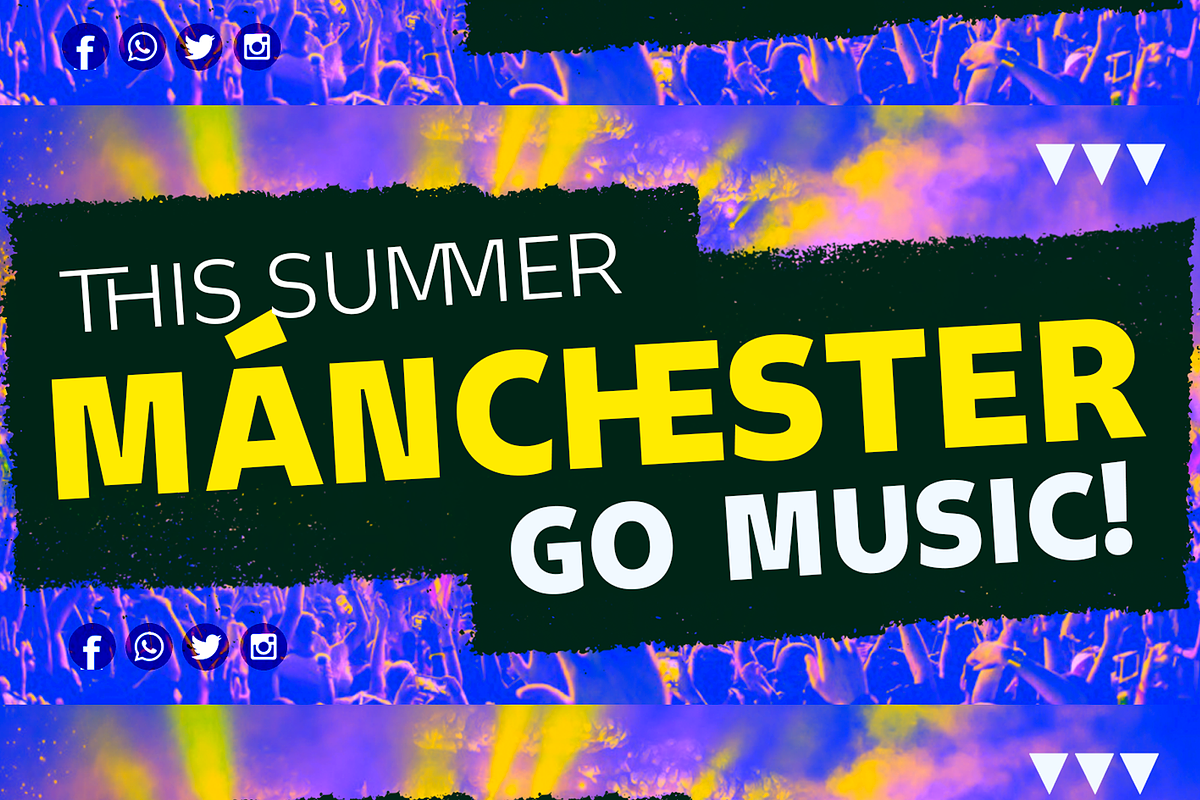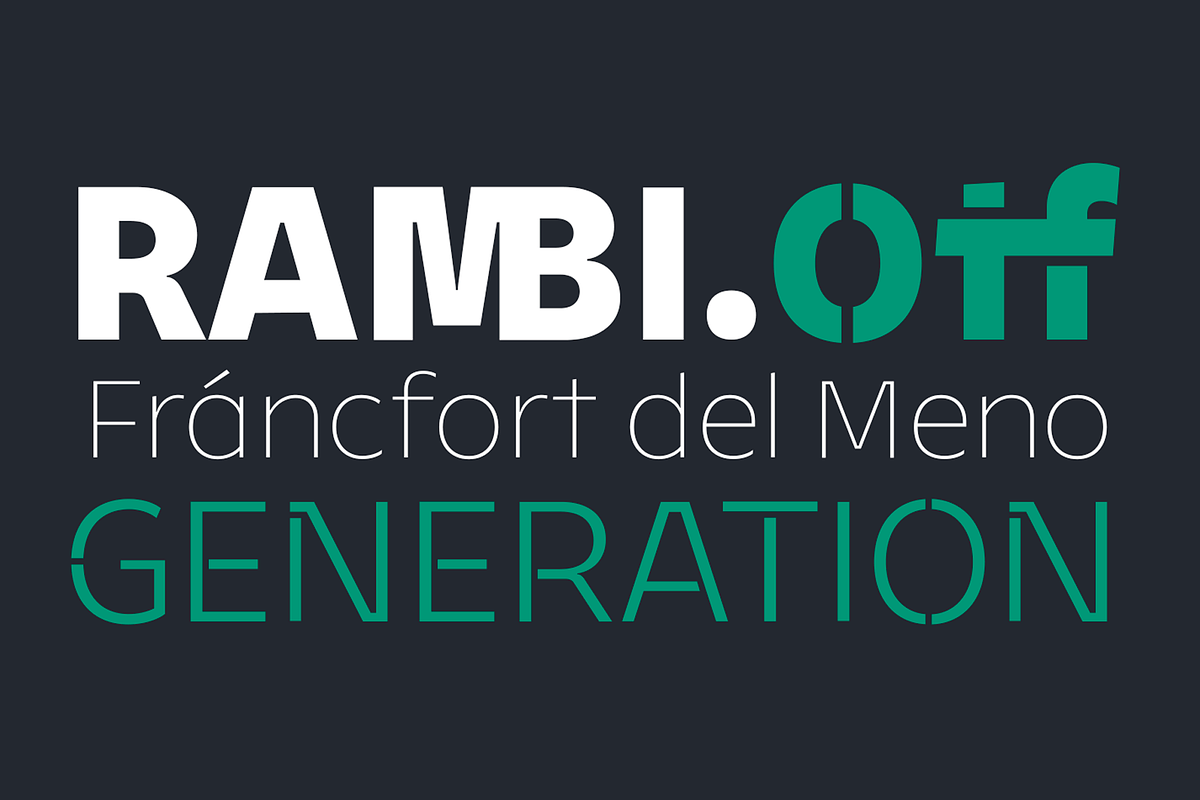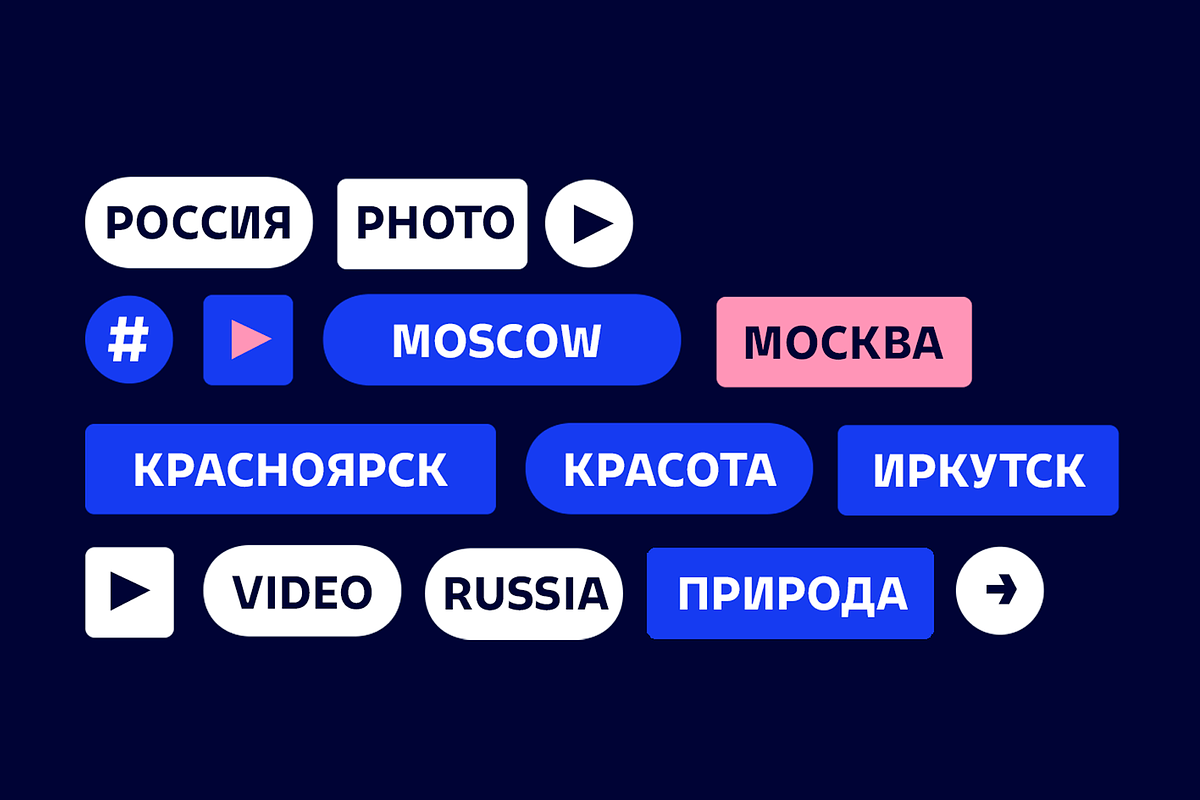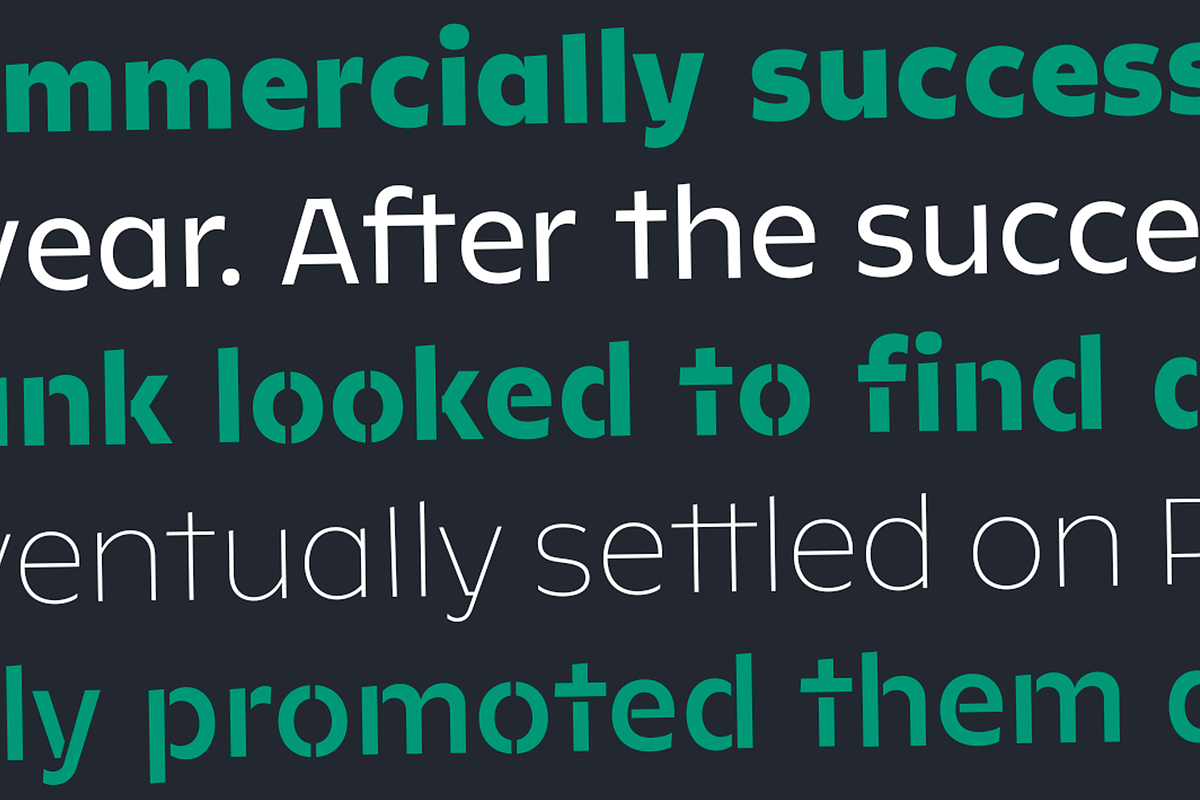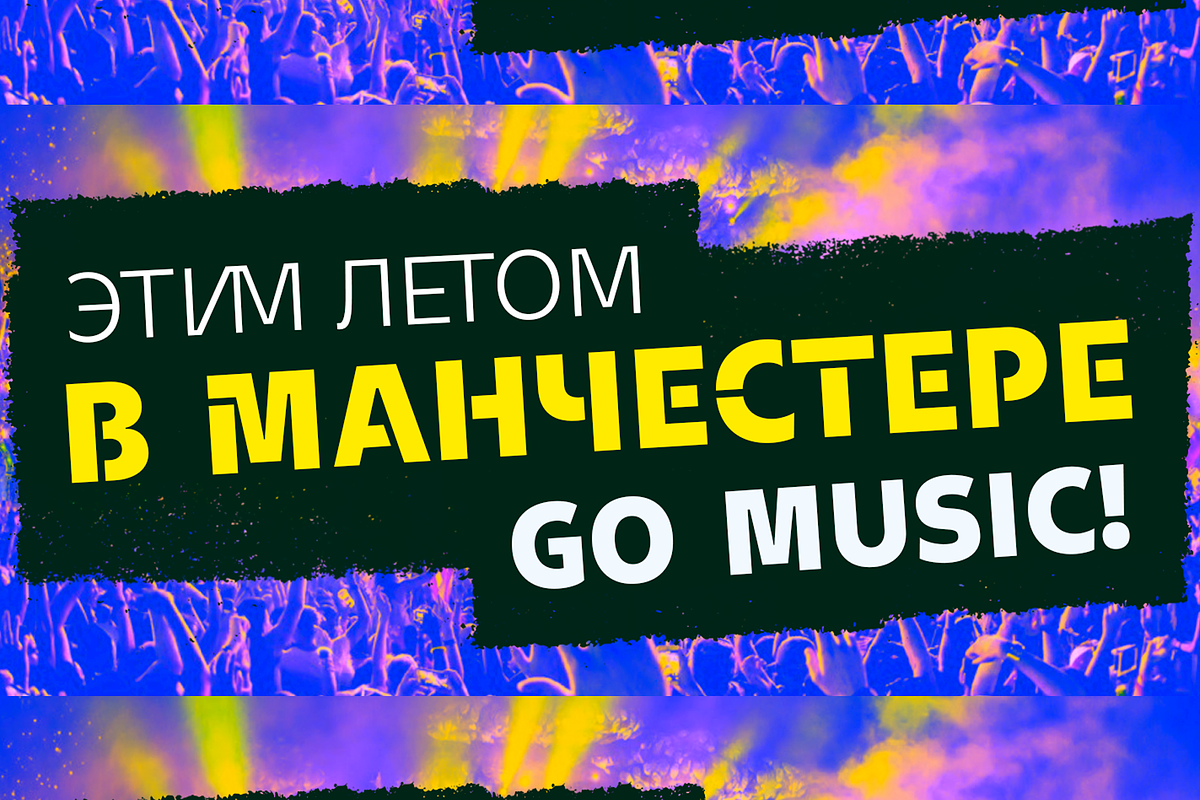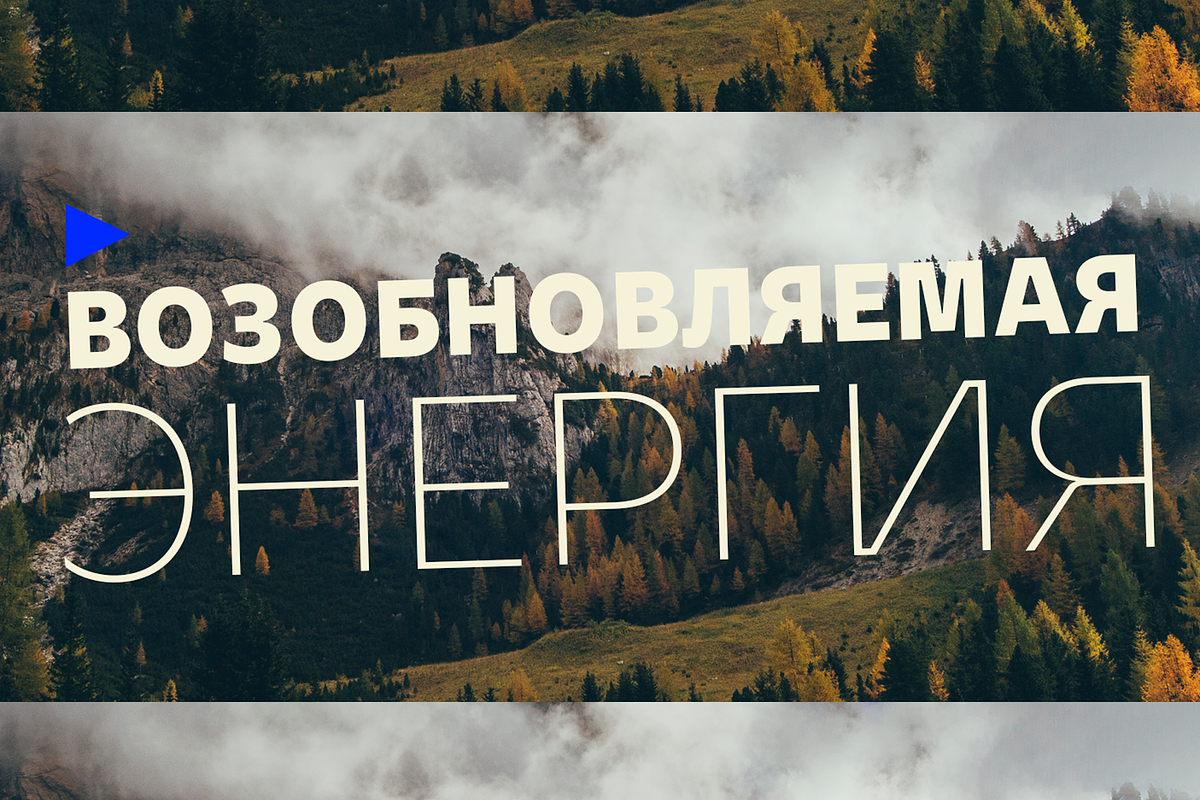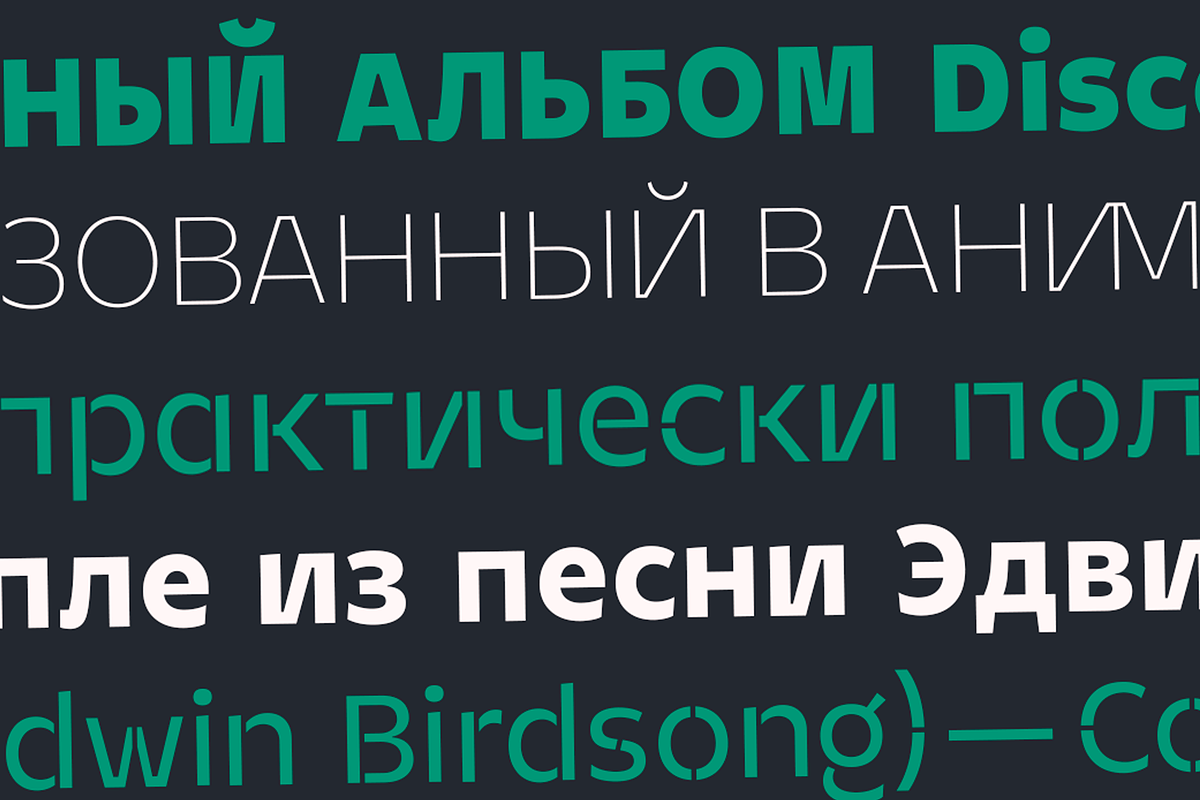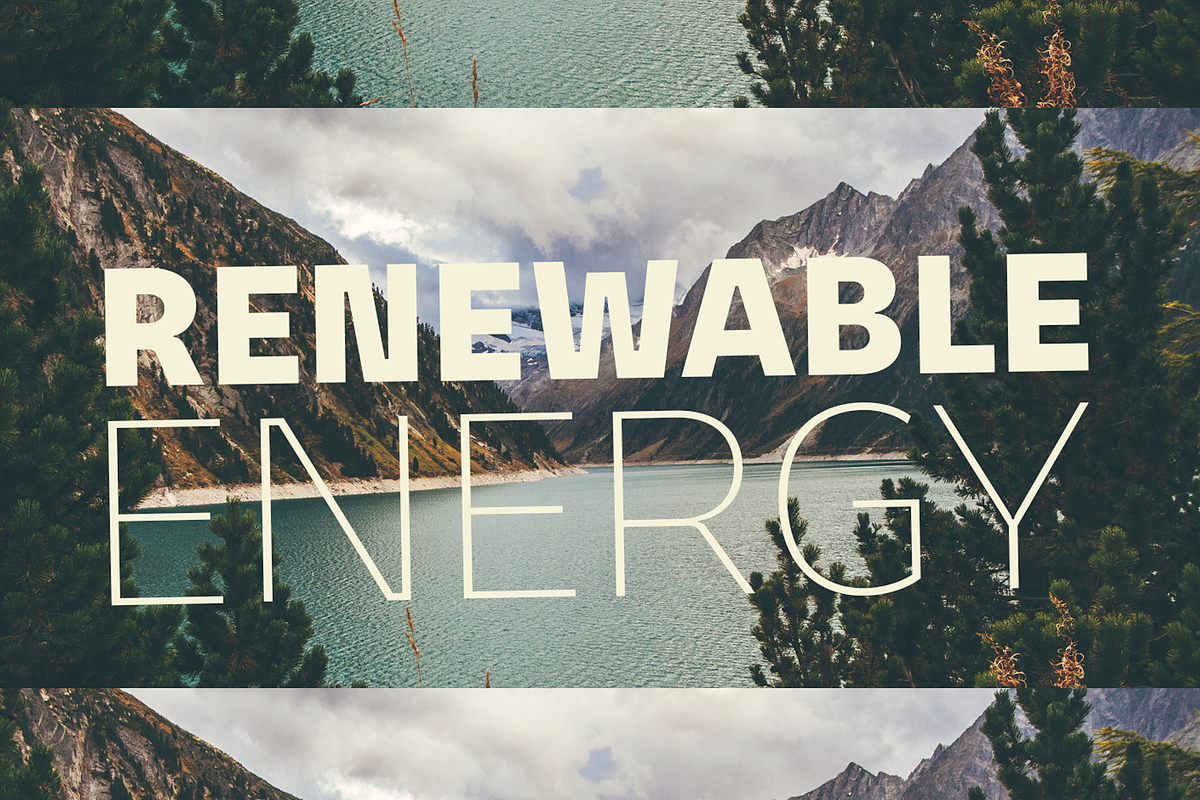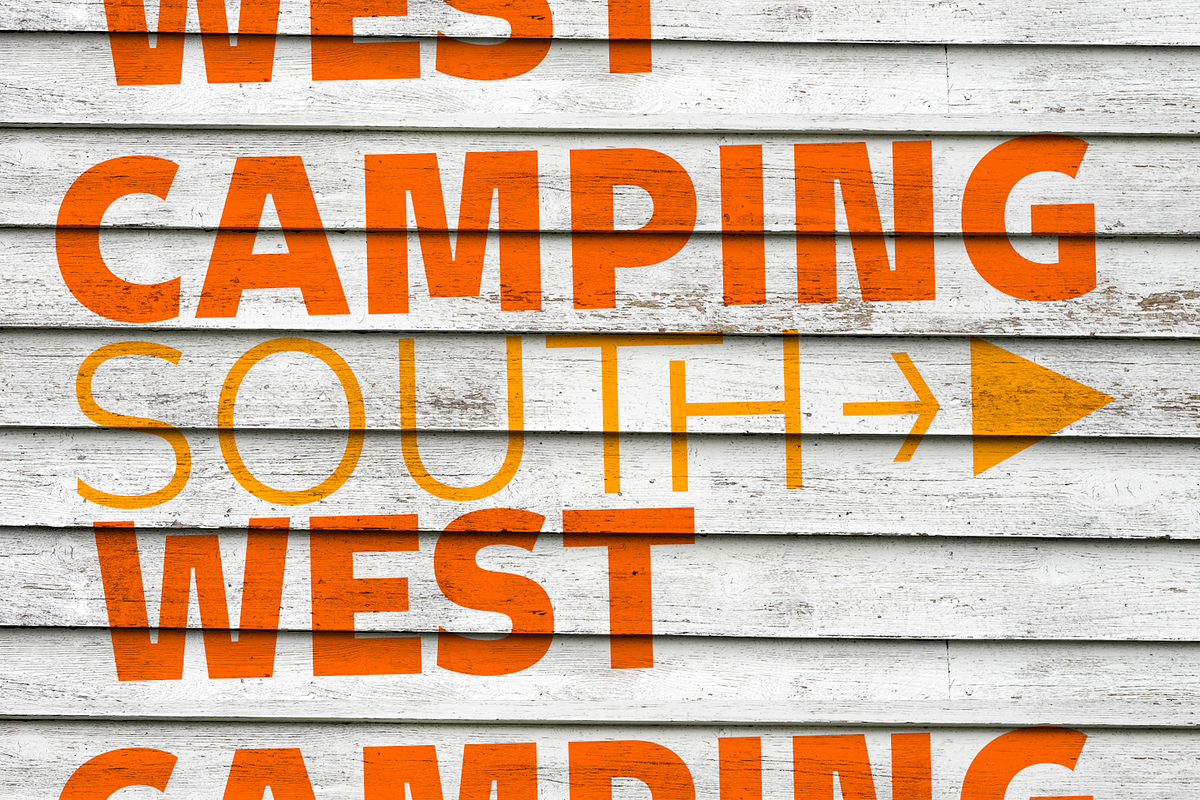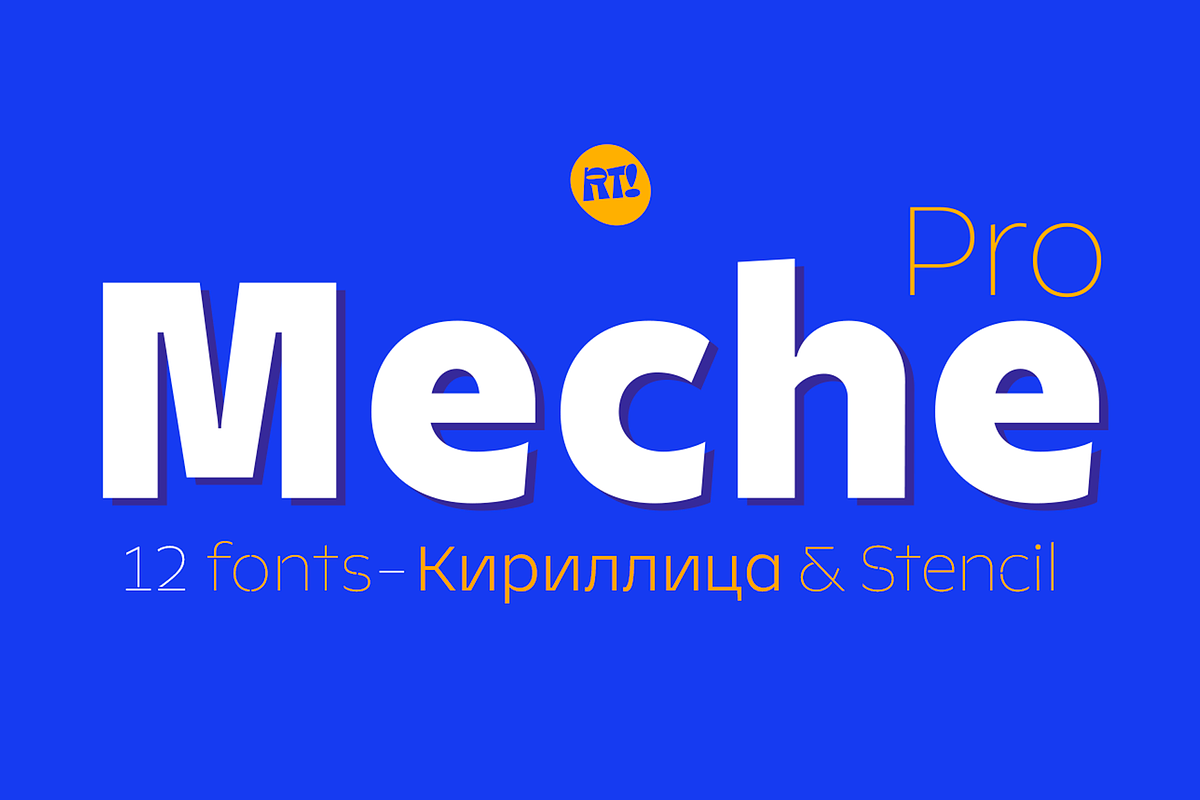
Meche Pro it is a geometric typeface family with a semi-formal touch, it contains 12 variants, from the Thin to Black and Stencil Thin to Black versions, plus Cyrillic alphabet with alternatives and different ligatures was added, especially for titles